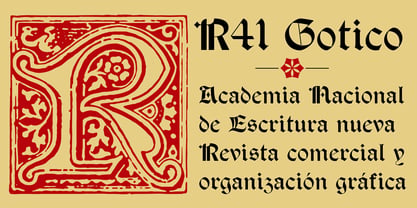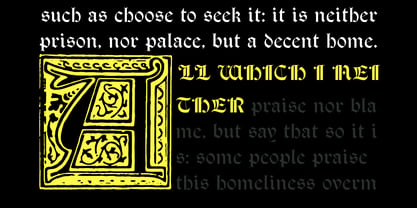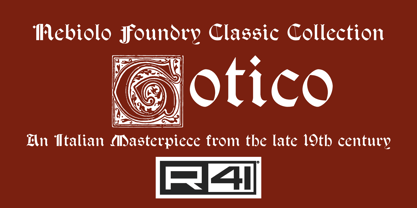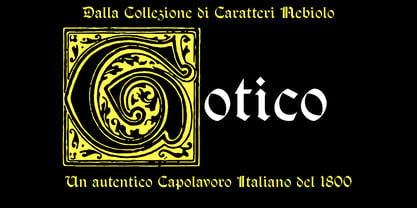
R41 Gotico
This blackletter style originates from Nebiolo typefaces designed in the late 19th century. With Nordic roots, this style began in France during the Medieval Age and was embraced in Germany as a national character. It made its way to Italy through the codices of that era and later from incunabula by German printers. The typeface boasts an artistic and decorative quality, complemented by a remarkable dignity in its stern shapes, making it ideal for various applications such as branding, packaging, and editorial design.